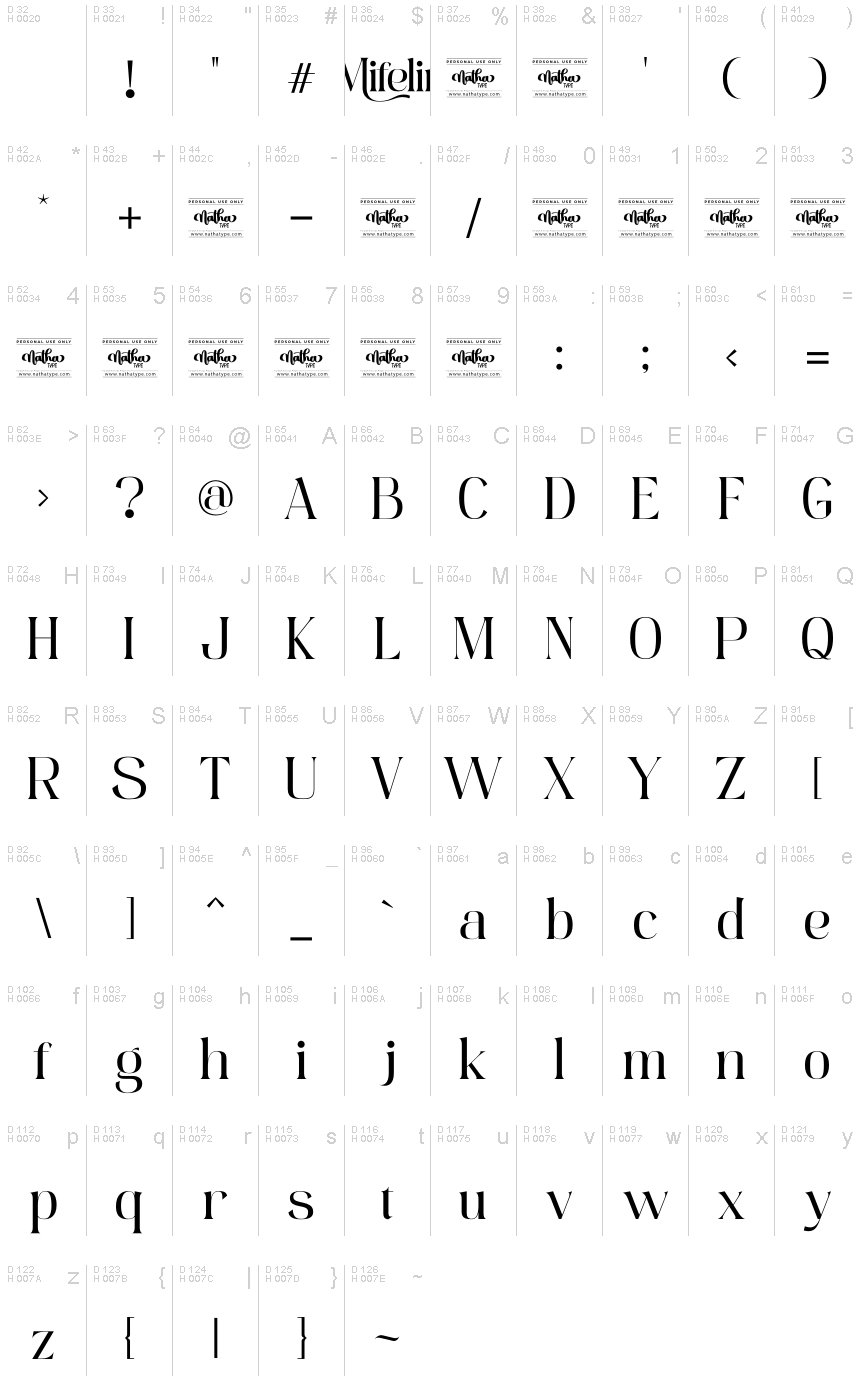
Mifelin
Mifelin captivates with its exquisite blend of modern elegance and timeless sophistication. Designed by Nathatype, this serif font boasts gracefully elongated characters that evoke a sense of refinement. Each stroke carries a delicate weight, creating an inviting rhythm that draws the eye without overwhelming the viewer.
The distinctive curves and sharp angles lend an air of authority while maintaining approachability, making Mifelin ideal for both contemporary branding and traditional publications. Its unique personality shines in editorial layouts, luxurious invitations, and impactful signage, ensuring messages are delivered with flair and clarity.
Mifelin transforms text into visual art, making it a versatile choice for designers seeking to engage audiences through stylish typography. Whether used sparingly or in bold statements, it enhances any project with an unforgettable touch.